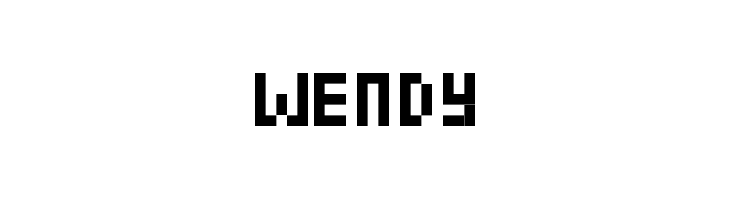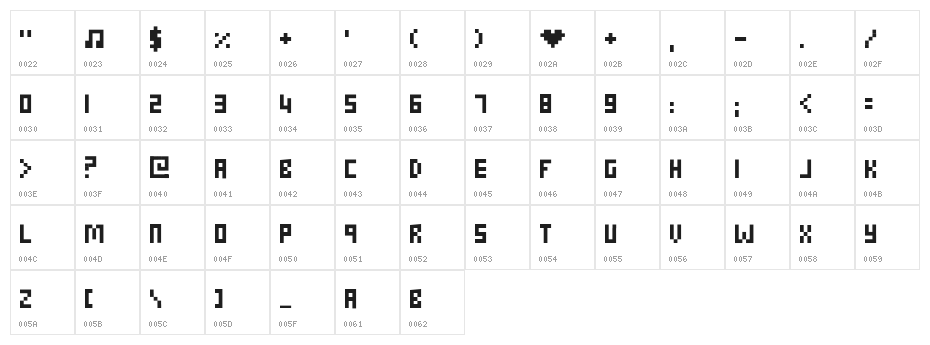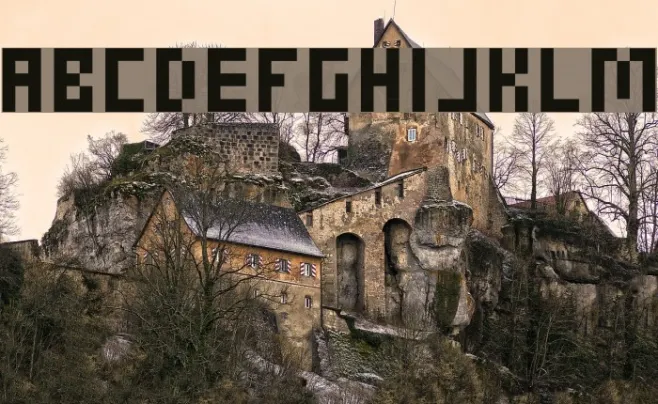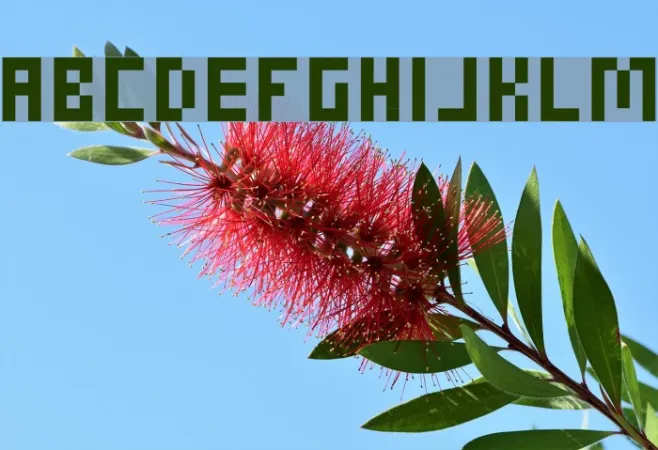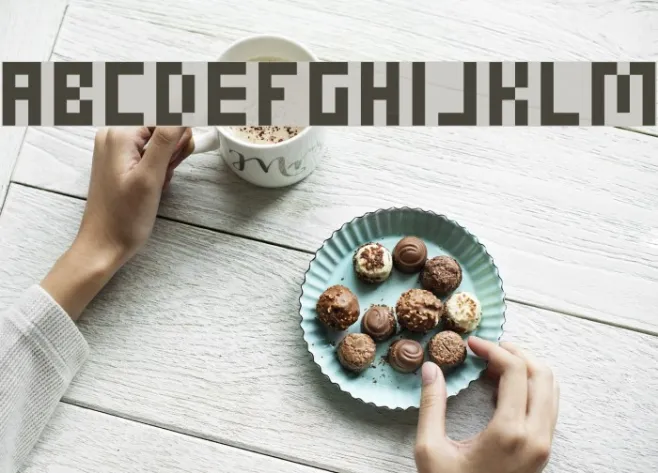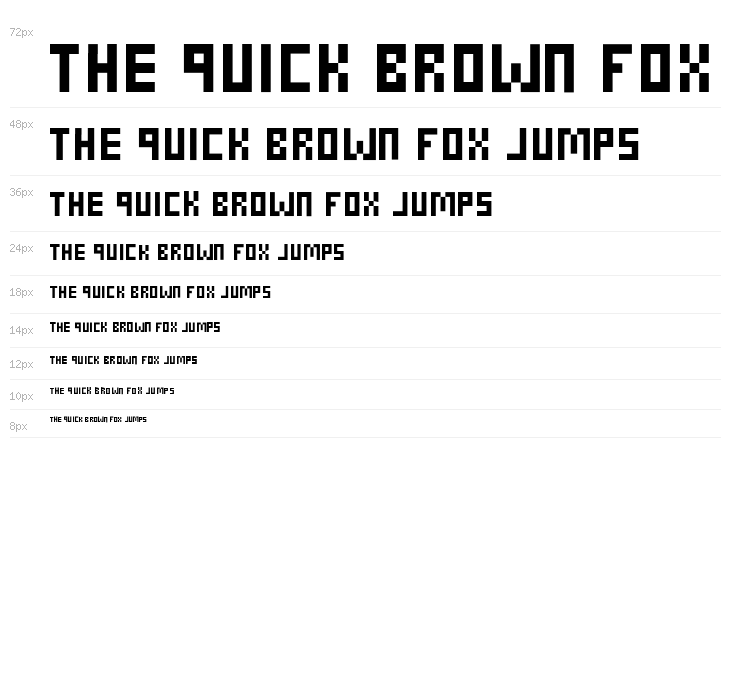
This font features a bold, blocky design with a pixelated aesthetic reminiscent of early digital displays and video games. Each character is constructed with a uniform grid-like structure, giving it a distinctly retro and digital feel. The uppercase and lowercase letters maintain a consistent height, contributing to a monospaced appearance. Numbers and special characters follow the same pixelated style, ensuring a cohesive look across all glyphs. The font's simplicity and geometric form make it highly legible, even at smaller sizes. Its nostalgic charm is ideal for projects that aim to evoke a sense of classic gaming or digital nostalgia.
| Use Case | Headlines, Logos, Digital displays |
| Proposed Projects | Ideal for video game design, retro-themed graphics, digital art projects, and tech-related branding. |